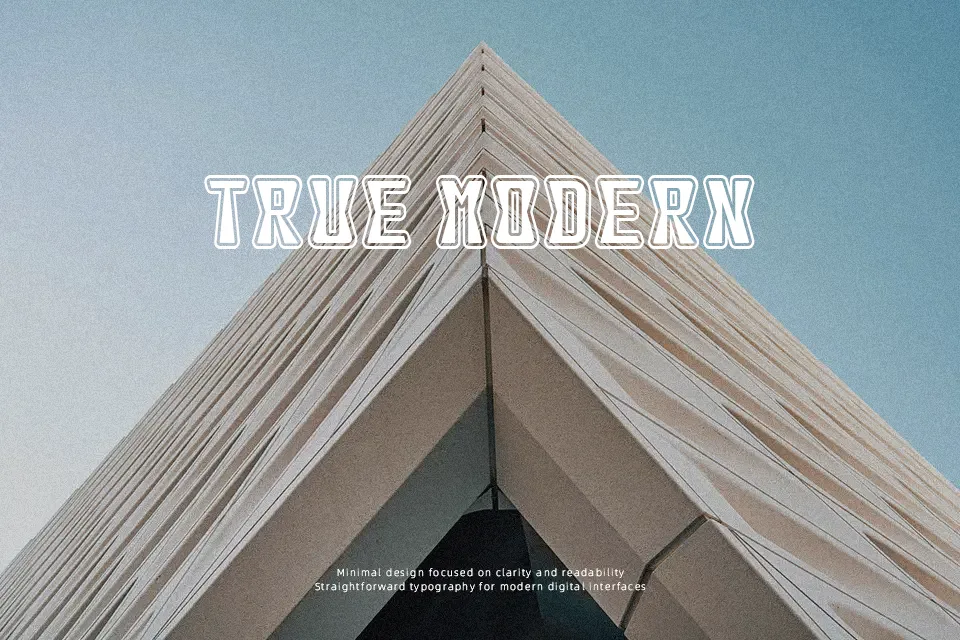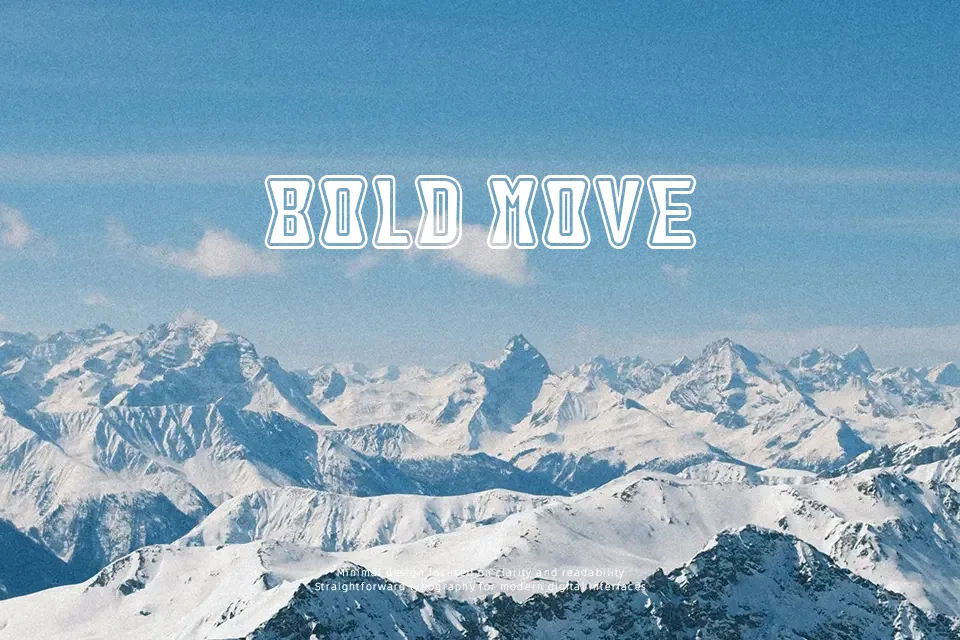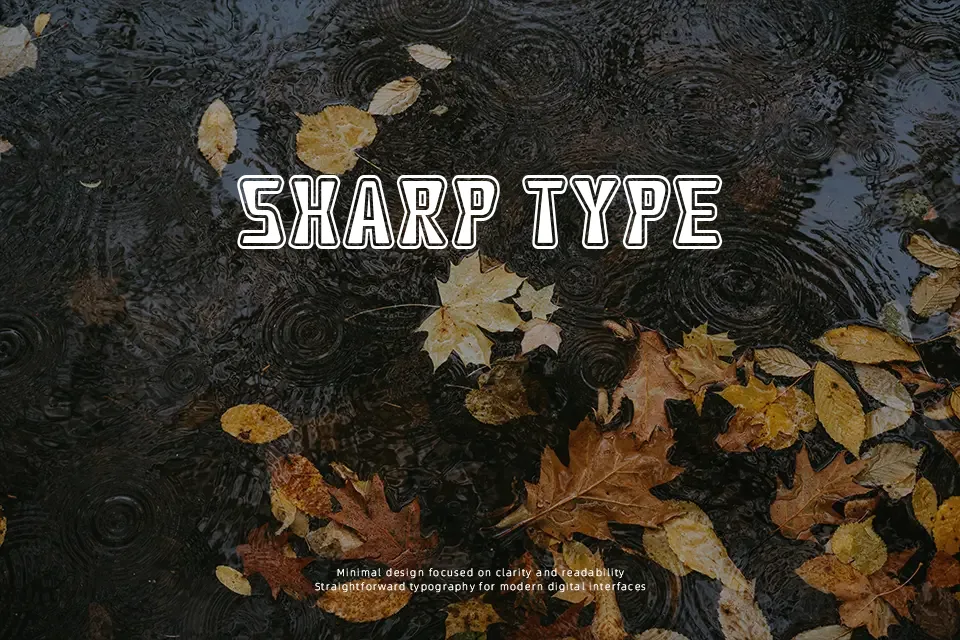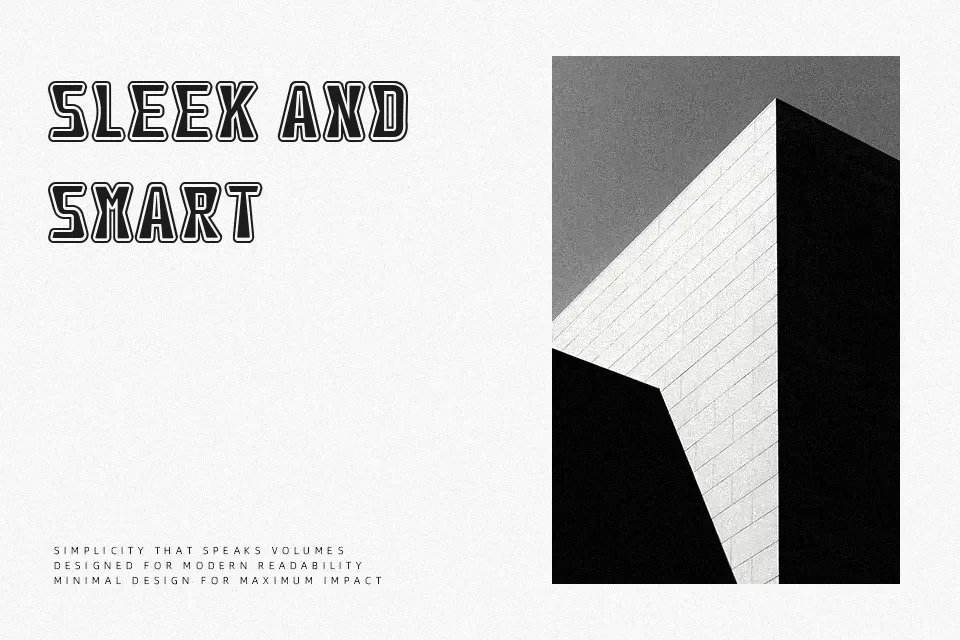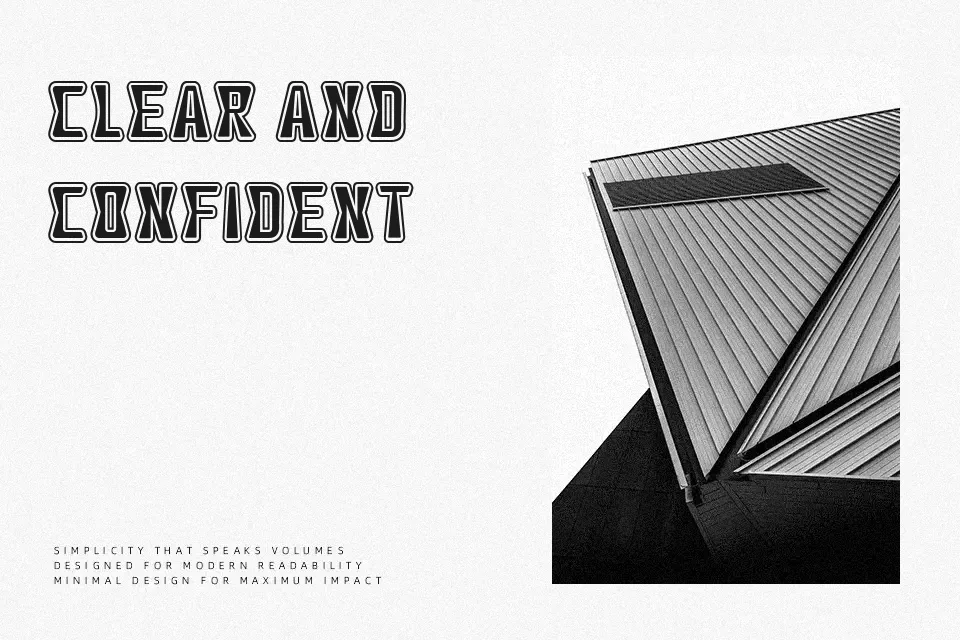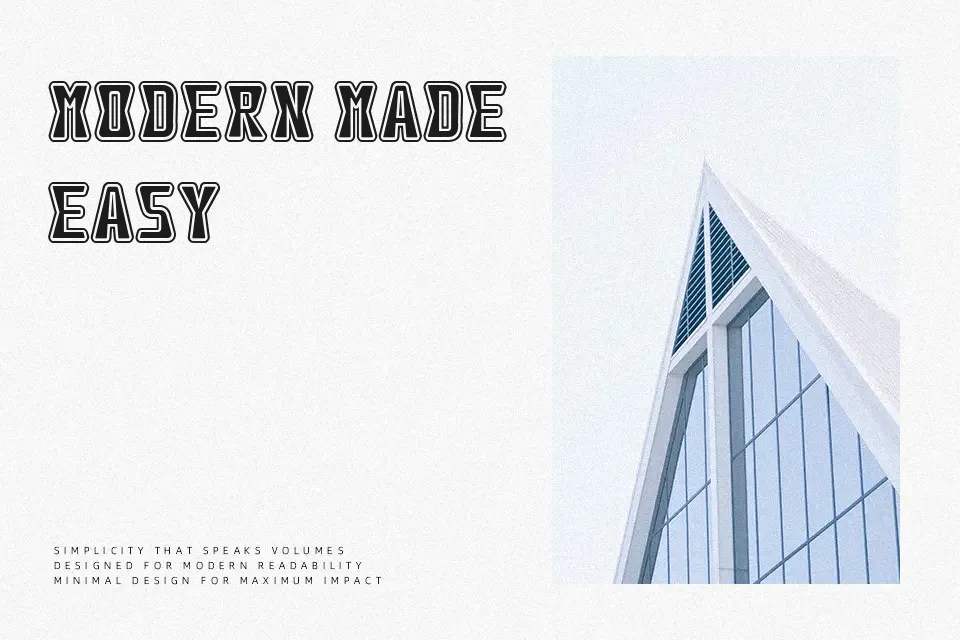
Rugby Font
This heavyweight typeface performs best when displayed at larger sizes, where the bold structure of Rugby Font can truly dominate a layout. The letterforms feature thick, condensed strokes with a distinctly blocky, athletic appearance that channels classic sports typography. Its tight spacing and imposing proportions create a strong visual rhythm, while the slightly rounded corners add a touch of approachability to the otherwise aggressive forms. The dense forms reduce comfort during extended reading, making it less suitable for body copy or small technical labels. However, the compact structure helps maintain legibility in oversized layouts, ensuring excellent visibility for team logos, gym graphics, and energetic event posters.
athletic apparel graphics
sports team logos
fitness brand packaging
gym promotional posters
Perfect for branding, headline, and poster, with a bold and condensed style.